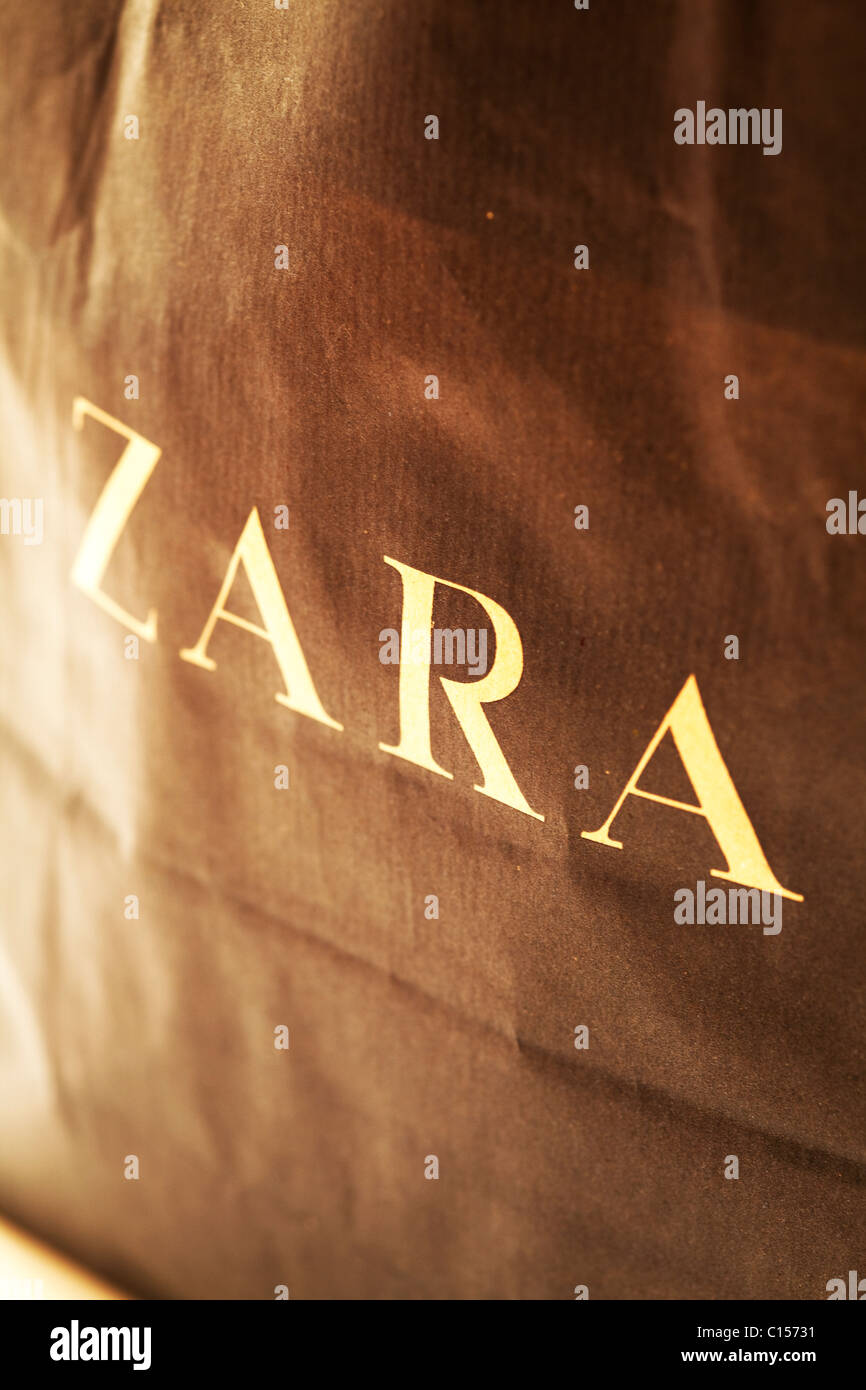
In other words the previous logo was overly simple predictable and generic. I read in a blog that can be a combination of two typefacesthe R could be caslonroman and other could be the same font with the serifs chopped off or Prado BQ-Med typefaceI think youre right Dologoits a wordmark developed just for Zara.
This font is designed by Adrian Frutiger and published by Linotype. The rebranding features a minimal typeface similar to the one used in the previous logo that was released in 2011 which saw the letters ZARA printed in. Maybe not refer with Helvetica typeface to the logo but they should be used with these brands.
The last time ZARA changed its logo was in 2011. The new Zara logo deviates slightly in its previous design which was introduced back in 2011. This means that it is created with a font.
The spacing between the letters was more that offered it. I feel that this logo really reflects well upon the brand with the minimal feel to the clothing and flows well with the other typography on the website. Zaras new logo is already proving particularly controversial with fans and detractors weighing in on Twitter with their own arguments about the type design.
The Zara logo is situated in the top left hand corner and is of the font Linotype Didot. The font has a Roman style with thin serifs. The old Zara logo was rather spaced out.
ZARAs new look conjures up the heritage and weightiness of these brands with its heavy all-caps logo which perhaps signals something about ZARAs. It bears some similarities to its. Zara First Name Logo.
The previous logo of Zara featured a simple and elegant watermark with the custom typeface. The agency behind this logo is Baron Baron design firm. The Agency Behind the New ZARA Logo.